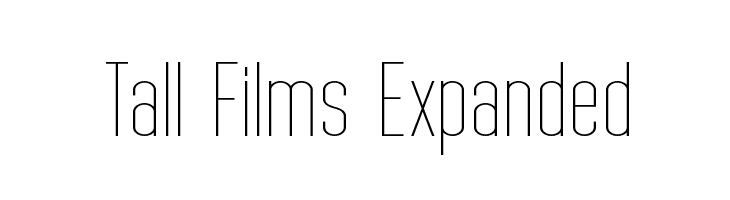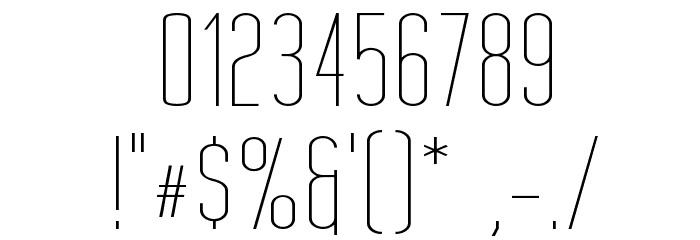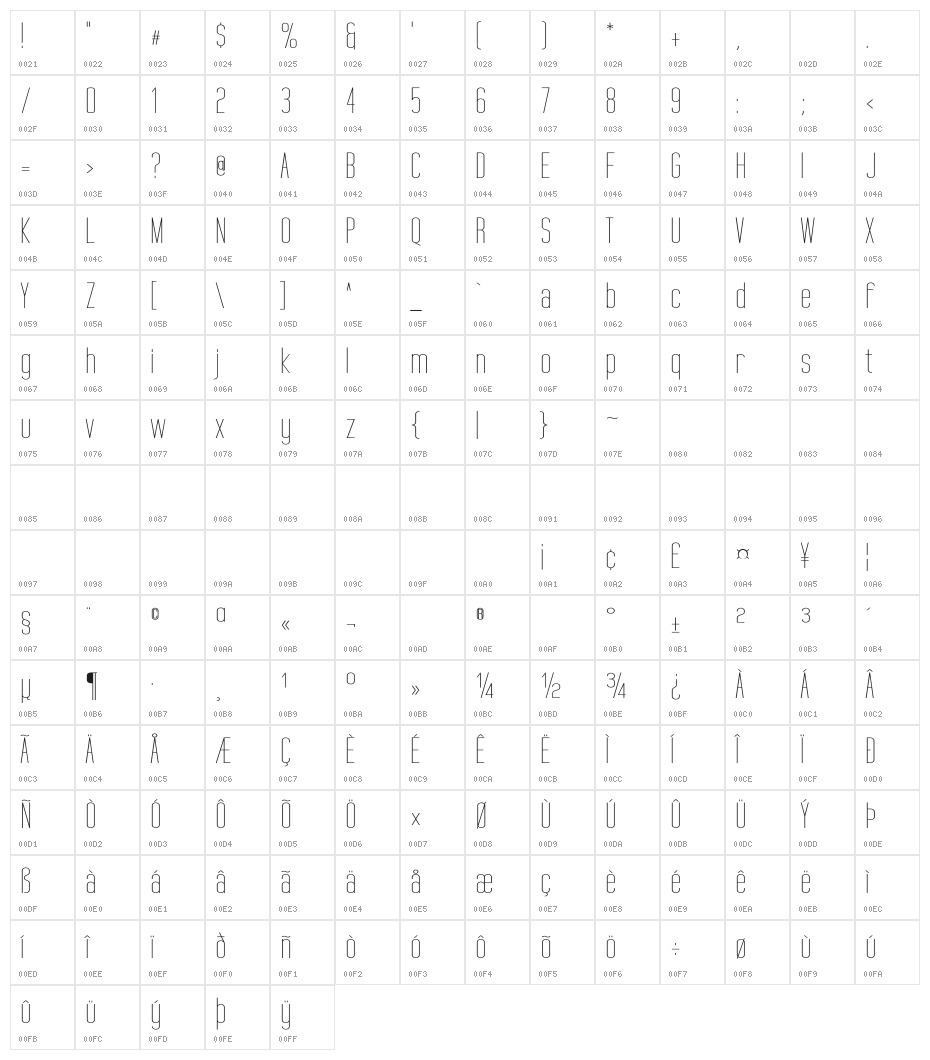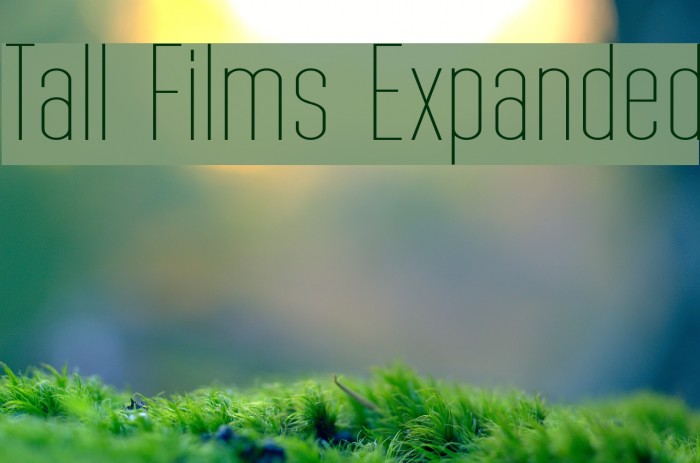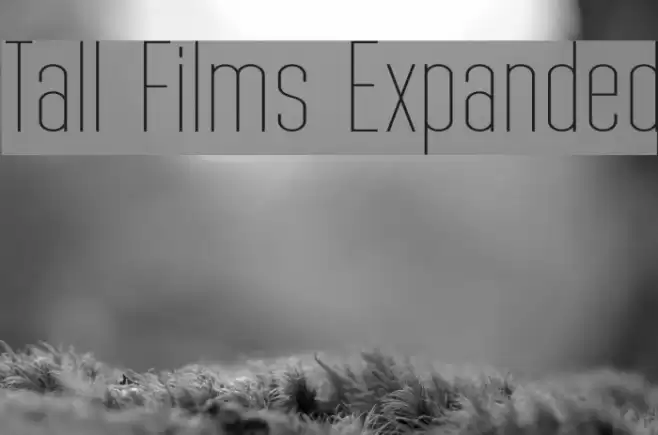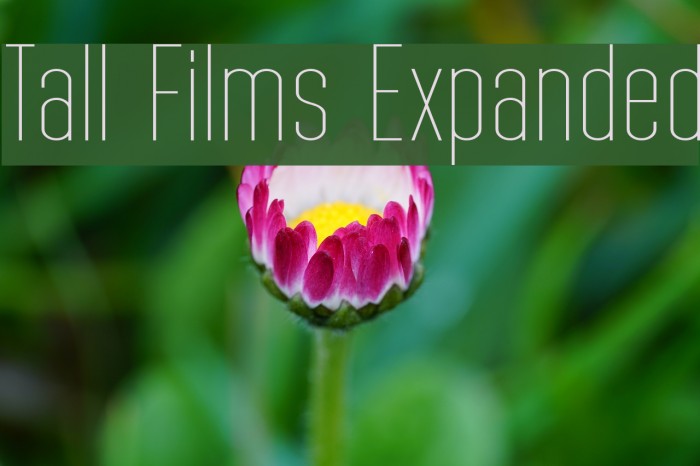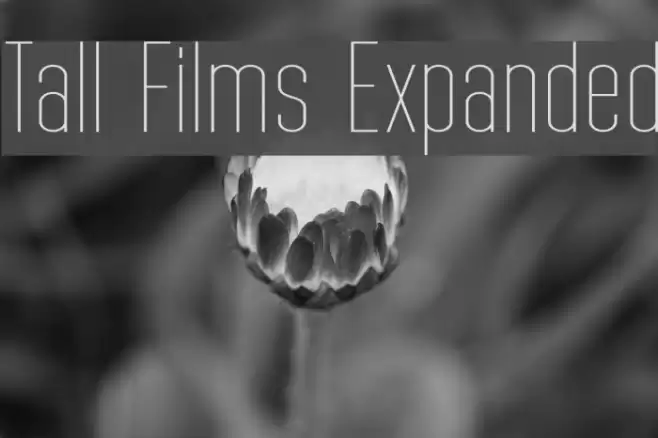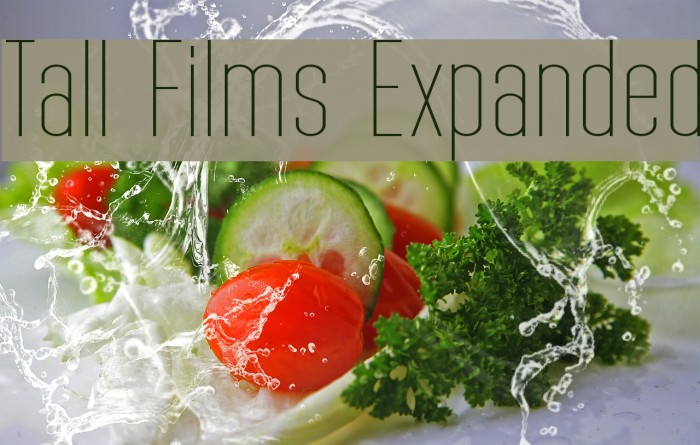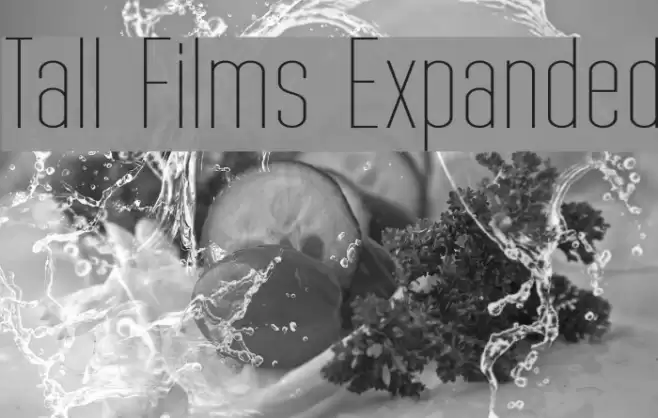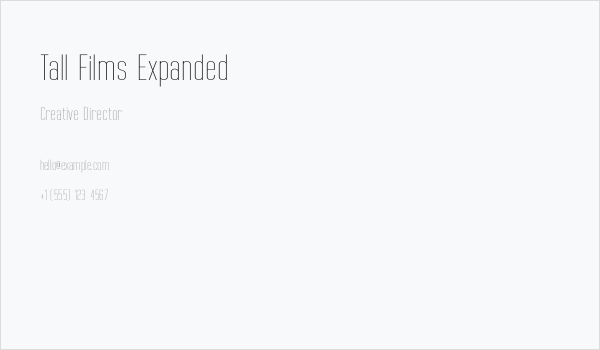
Tall Films Expanded Font
Tall Films Expanded Description
This typeface features a tall and slender design with elongated characters that emphasize verticality. The letters are clean and modern, with a geometric structure that gives them a contemporary feel. The strokes are consistent in width, contributing to a uniform appearance across all characters. The font maintains a minimalist aesthetic, making it suitable for projects that require a sleek and sophisticated look. The uppercase and lowercase letters are well-proportioned, and the numerals are designed to complement the overall style. Special characters are included, maintaining the same elegant and streamlined design.
| Proposed Projects | Ideal for movie posters, fashion magazines, branding, and editorial design where a modern and sophisticated look is desired. |